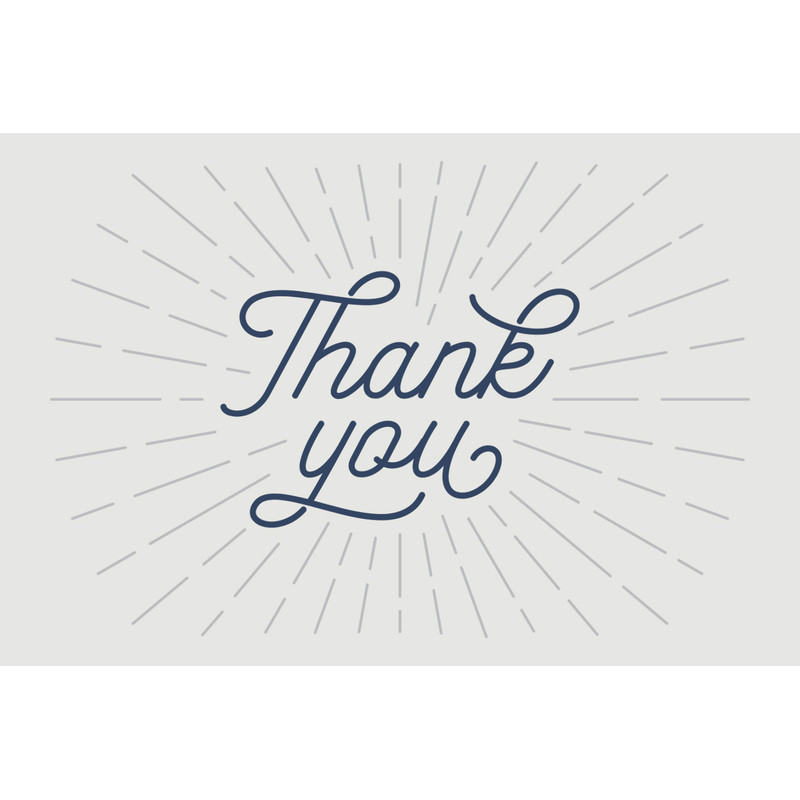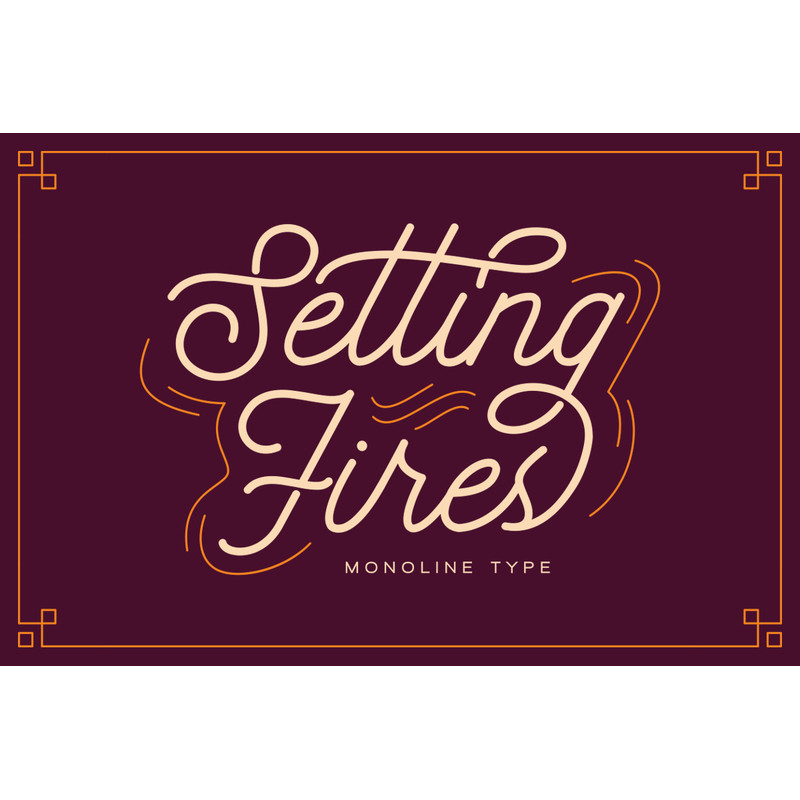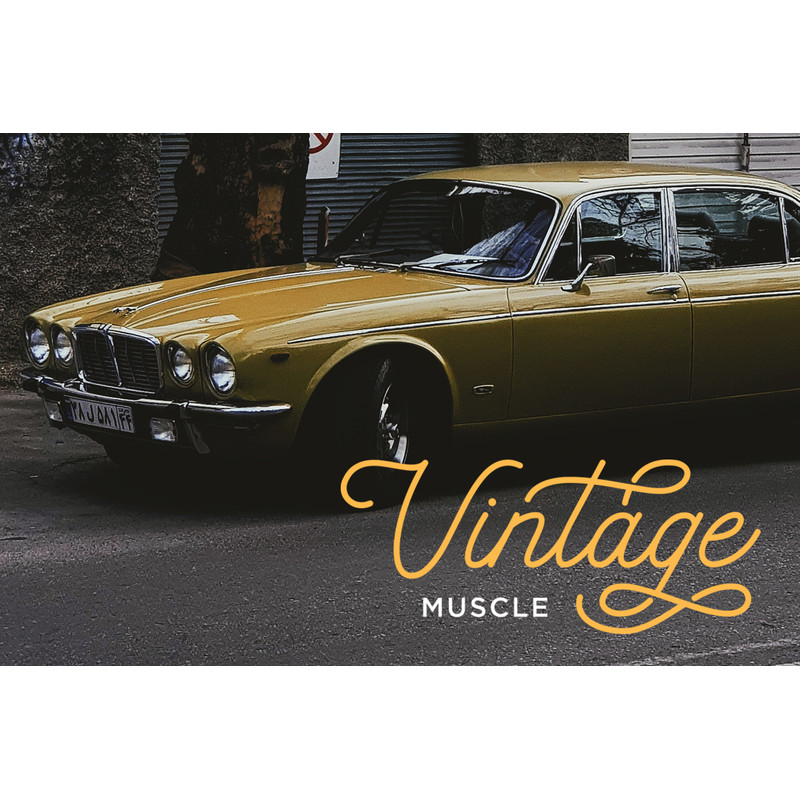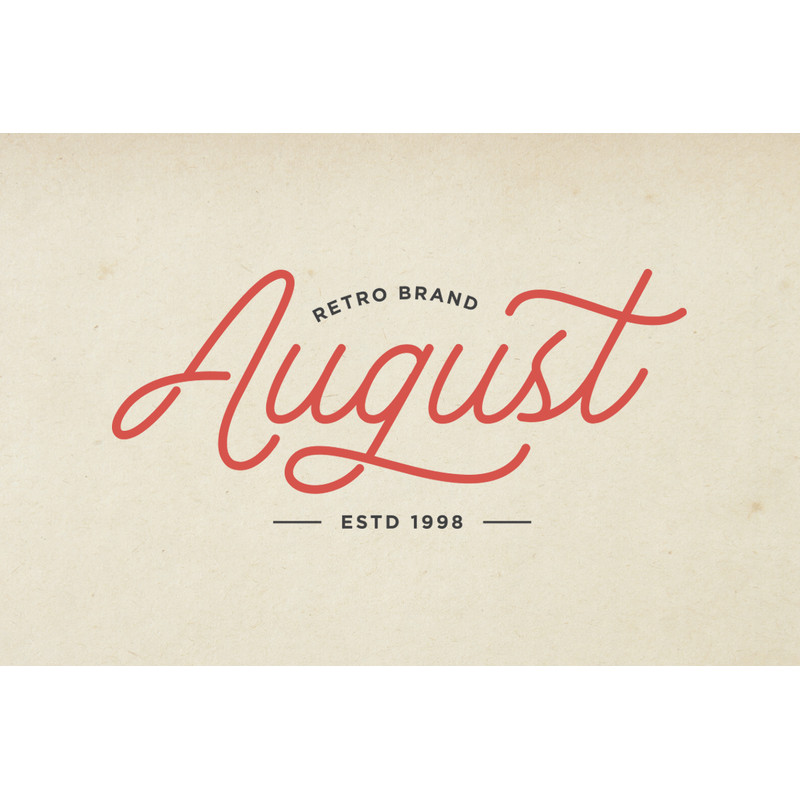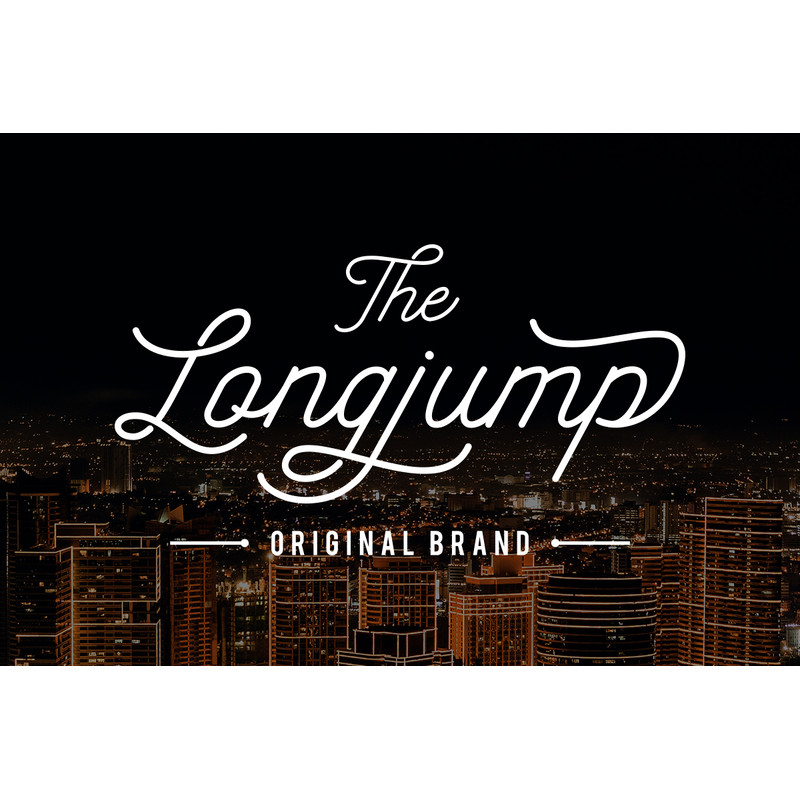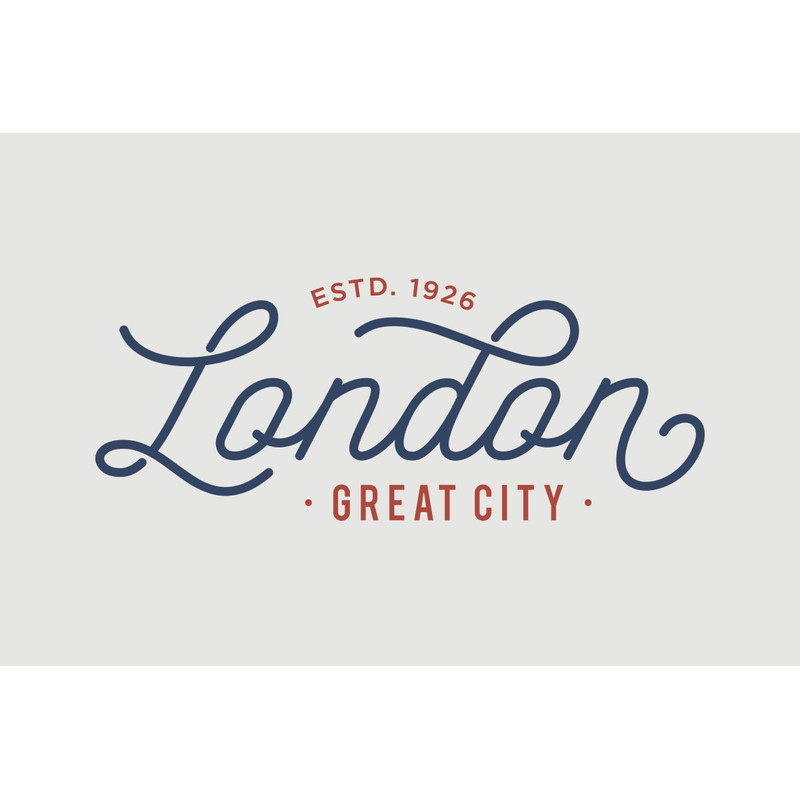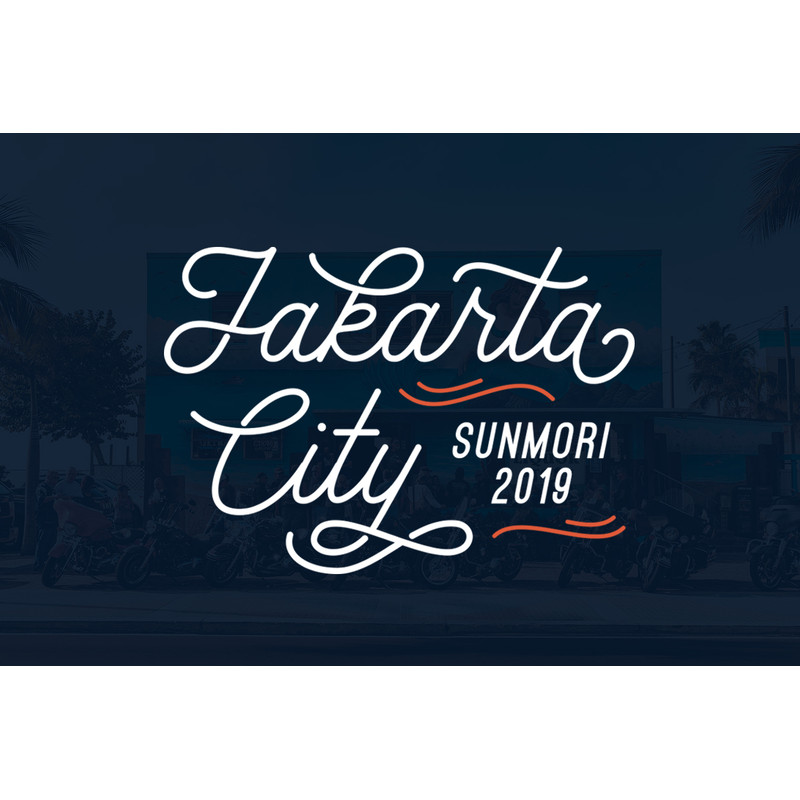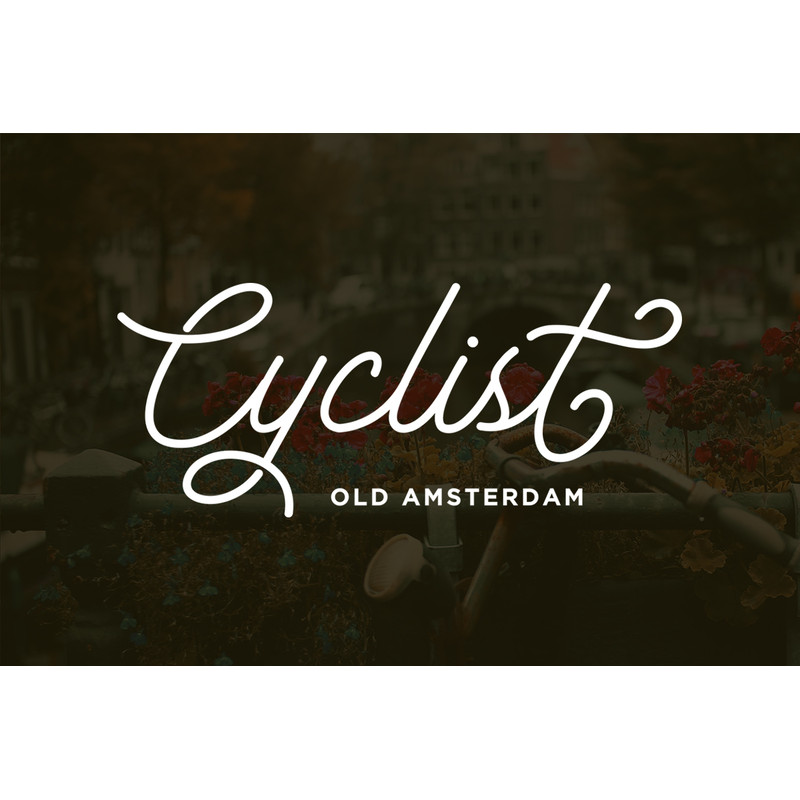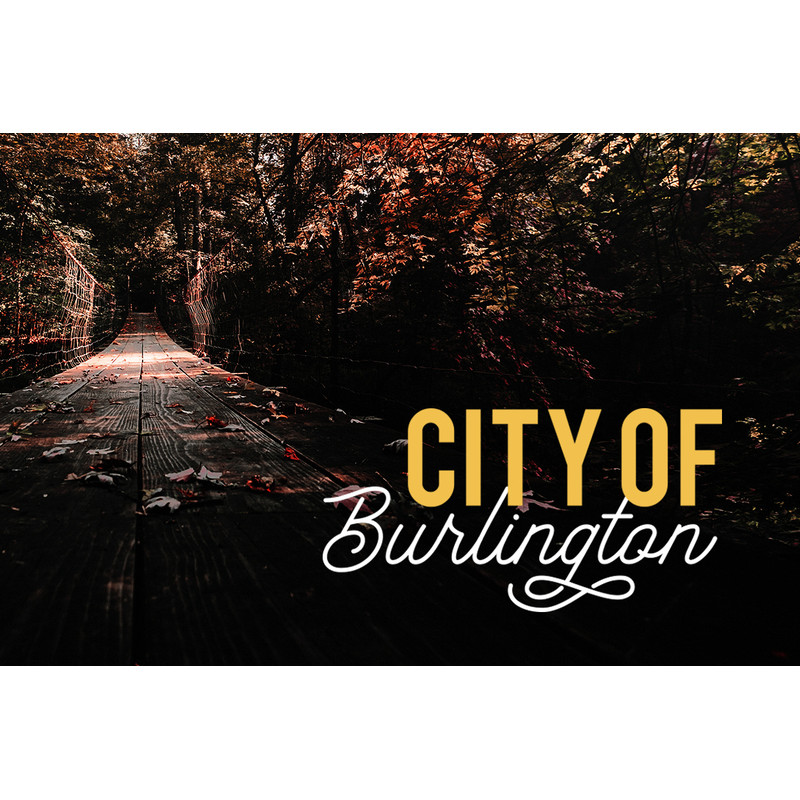
Seting Fires – Monoline Type Trending Fonts - Digital Font
Setting Fires has an elegant and stunning as a display which makes it perfecf for branding projects, logos, wedding designs, social media posts, advertisements, product packaging, product designs, label, photography, watermark, invitation, stationery and any projects that need handwriting taste.
– More than 100 of glyphs
– Ligatures & Stylistic Alternate